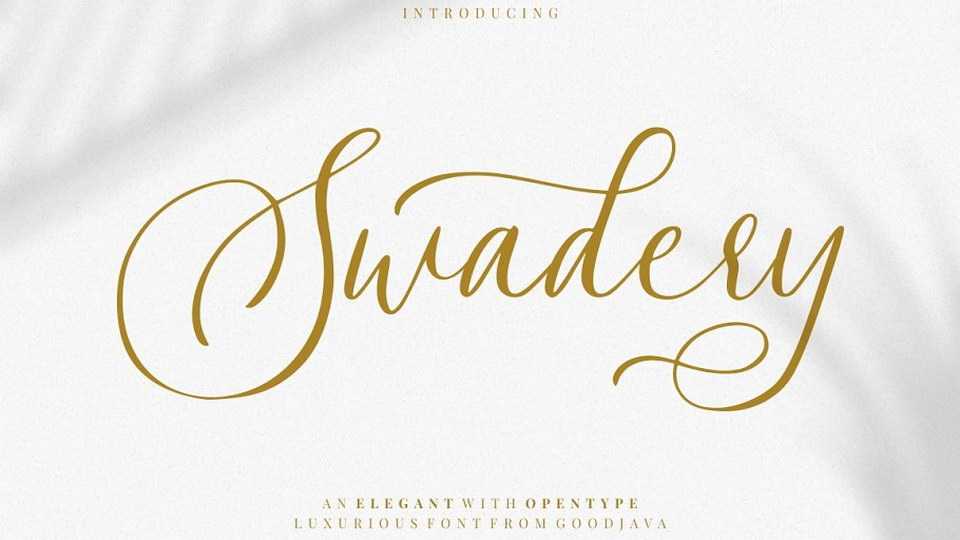
Download Swadery font, a luxury modern calligraphy script with a natural and classy look. Swadery is perfect for logo, wedding, fashion, photography, branding, special events and more.